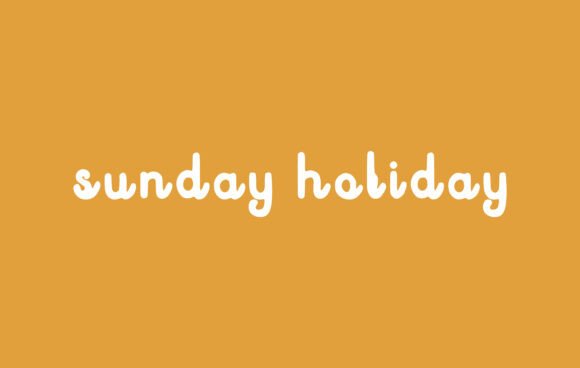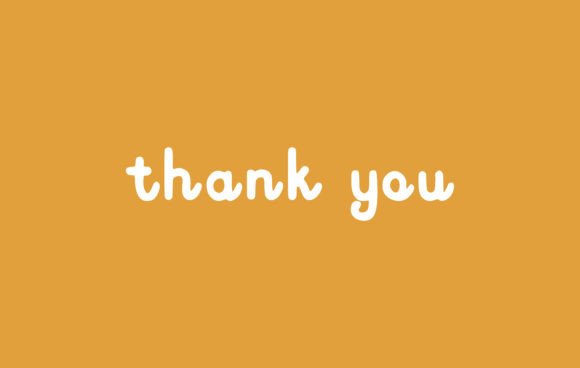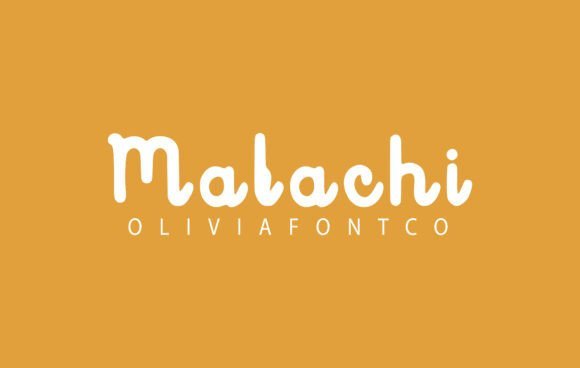
Introduction to Malachi Font
Malachi font is an authentic handwritten font with a romantic touch.
Key Features of Malachi Font
Why Choose Malachi Font?
Malachi Font offers exceptional quality and versatility, making it a valuable addition to your design toolkit. Whether you’re creating for personal projects or commercial use, Malachi Font delivers professional results.